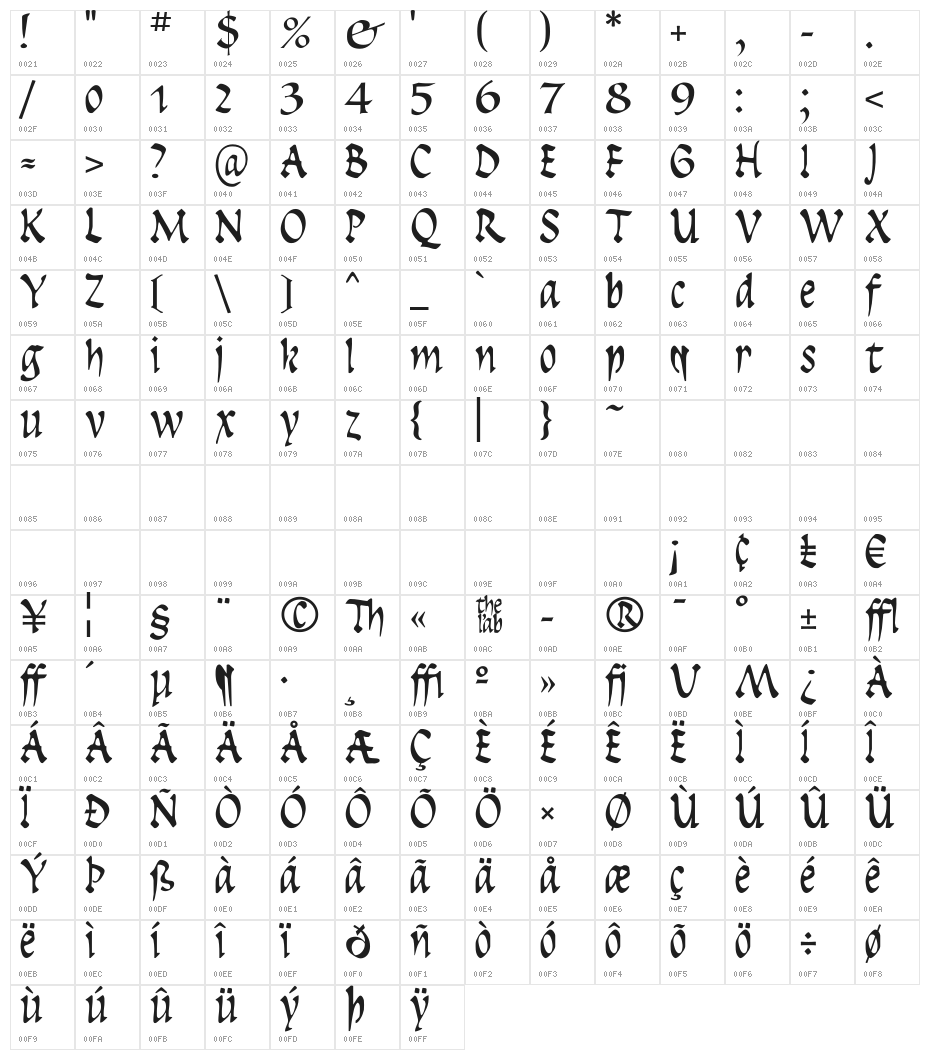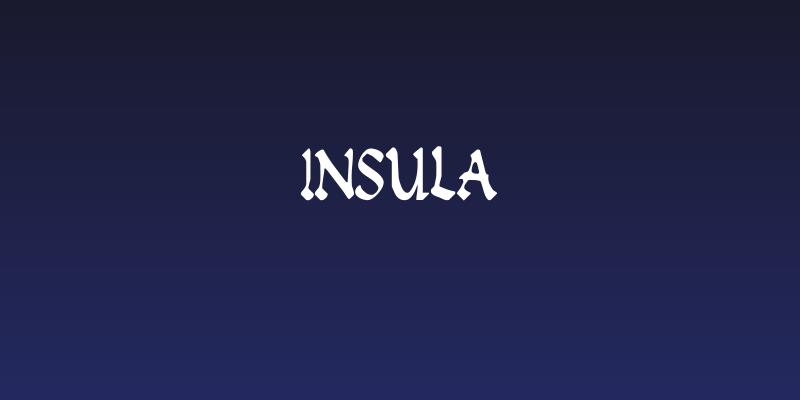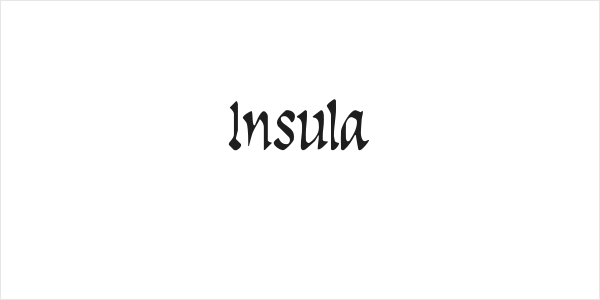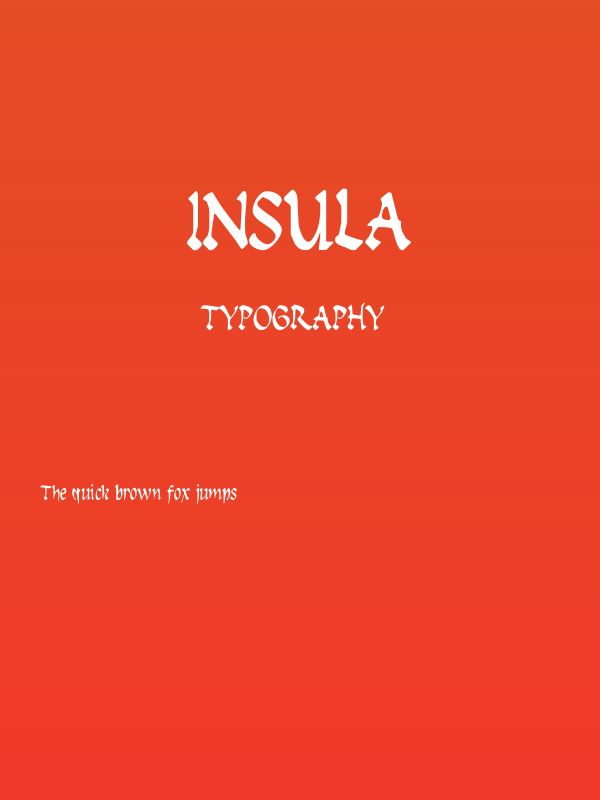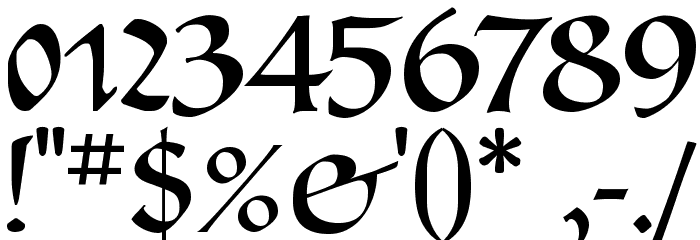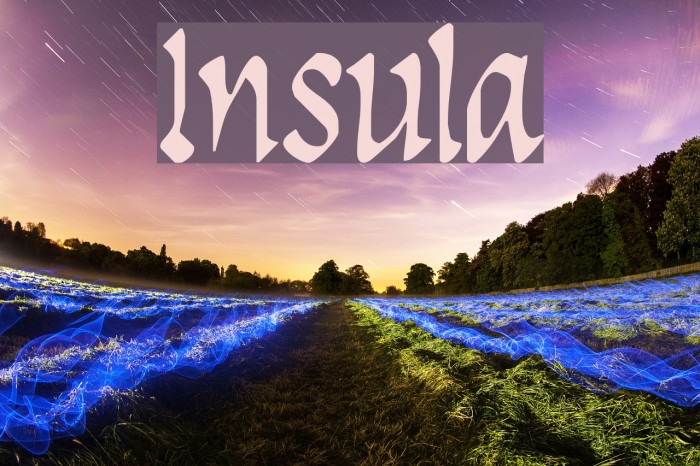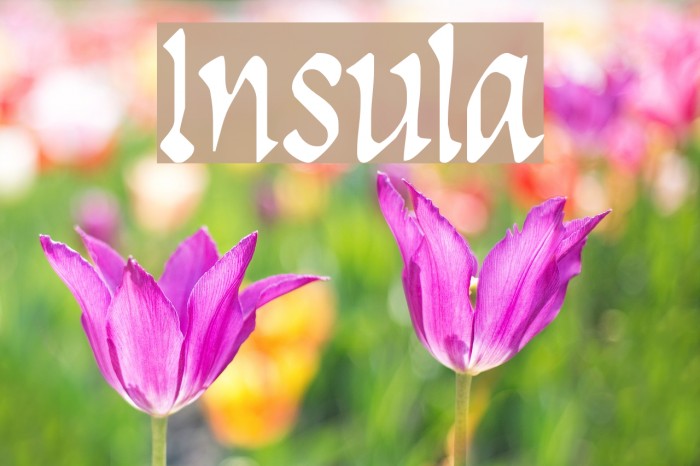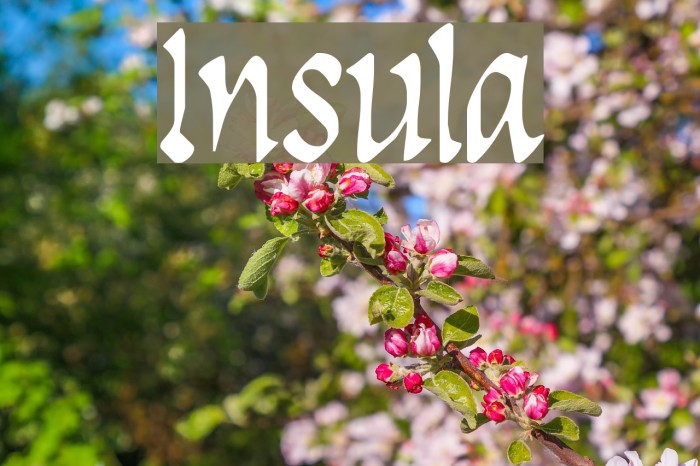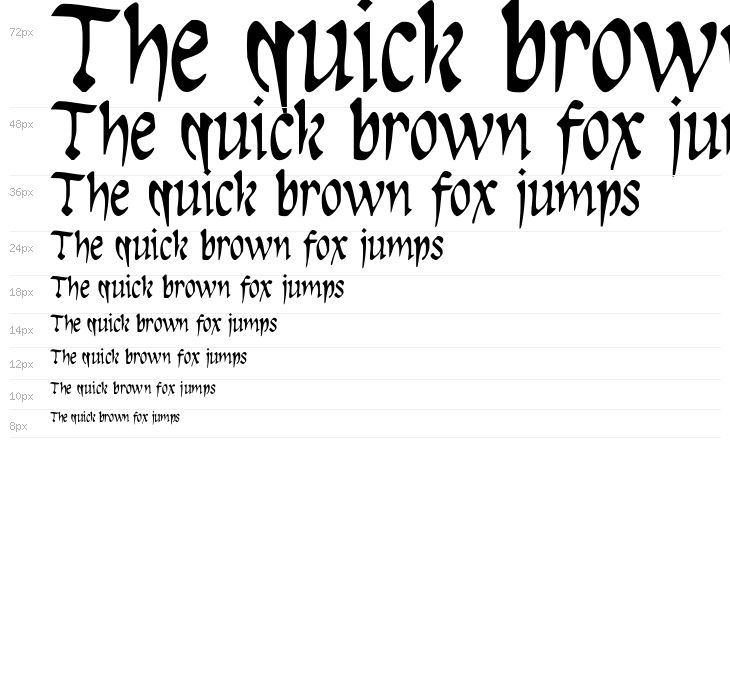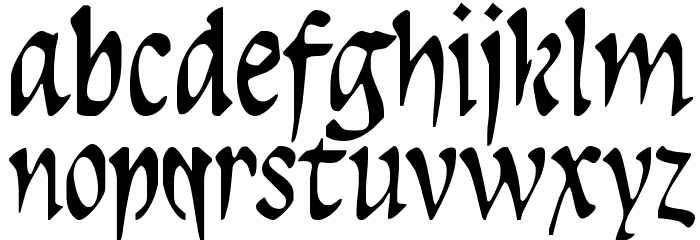
Insula Font
Insula Description
This font features a distinctive and artistic style reminiscent of calligraphic or medieval script. The characters exhibit a unique blend of sharp angles and smooth curves, creating an eye-catching and dynamic appearance. The uppercase letters are bold and dramatic, while the lowercase letters maintain a consistent flow with slightly exaggerated strokes. Numbers and special characters follow the same stylistic cues, ensuring a cohesive look across all elements. This font is ideal for projects that require a touch of elegance and historical flair.
| Use Case | Logos, Headlines, Decorative text |
| Proposed Projects | Suitable for invitations, historical-themed designs, fantasy book covers, and decorative signage. |